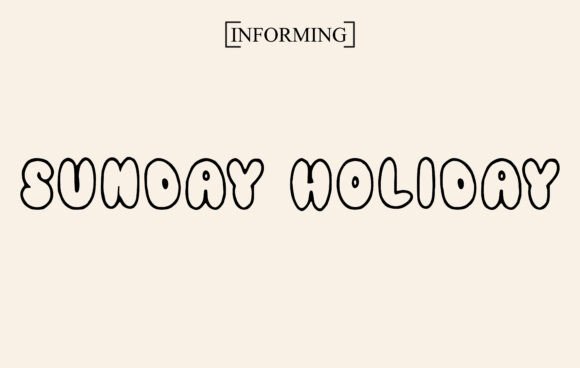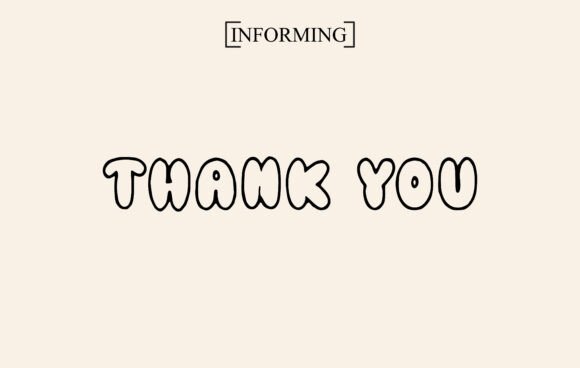
Introducing Elora Grace Font: Elevate Your Designs with Elegance and Versatility
In the world of design, typography plays a crucial role in conveying messages, evoking emotions, and creating lasting impressions. For designers and crafters seeking a font that embodies elegance, versatility, and legibility, Elora Grace Font is an exceptional choice. This beautifully crafted font is designed to be a true favorite, capable of taking your creative ideas to the highest level.
Legible and Versatile: The Perfect Combination
Elora Grace Font stands out for its exceptional legibility, making it perfect for use as both title and body text. Its clear and readable design ensures that your message is conveyed effectively, whether you’re working on magazine headlines, t-shirts, social media posts, branding materials, wedding invitations, cards, or any other design project. The font’s versatility allows it to seamlessly adapt to various design contexts, making it an invaluable asset for designers and crafters.
With Elora Grace Font, the creative possibilities are endless. Here are some design areas where this font truly shines:
• Magazine Headlines: Create eye-catching titles that grab readers’ attention and set the tone for your content.
• T-Shirts and Apparel: Design stunning and comfortable clothing with quotes, phrases, or logos that showcase your brand’s personality.
• Social Media: Enhance your online presence with engaging posts, stories, and captions that reflect your unique style.
• Branding: Establish a strong brand identity with a font that exudes professionalism and sophistication.
• Wedding Invitations and Cards: Add a touch of elegance and romance to your special occasion designs with this beautiful font.
Why Choose Elora Grace Font?
Elora Grace Font offers several advantages that make it an attractive choice for designers and crafters:
• Elegant Design: Its sophisticated and refined appearance elevates any design project.
• High Legibility: Ensures that your text is easily readable, even at smaller sizes.
• Versatility: Suitable for a wide range of design applications, from digital media to print materials.
• Easy to Use: Seamlessly integrate Elora Grace Font into your design workflow.
Tips for Getting the Most Out of Elora Grace Font
To maximize the potential of Elora Grace Font, consider the following tips:
• Experiment with Sizes: Play with different font sizes to create visual hierarchy and emphasize key elements.
• Combine with Other Fonts: Pair Elora Grace Font with complementary fonts to add depth and interest to your designs.
• Adjust Line Spacing: Optimize line spacing to enhance readability and flow.
• Color Variations: Explore different color options to match your brand’s palette or design theme.
Elora Grace Font is a versatile and elegant typography solution designed to inspire creativity and elevate design projects. Its exceptional legibility, sophisticated appearance, and adaptability make it an ideal choice for designers and crafters across various industries. Whether you’re working on magazine headlines, t-shirts, social media posts, or wedding invitations, Elora Grace Font is poised to become your go-to font for achieving stunning results. Discover the potential of Elora Grace Font and take your designs to new heights.